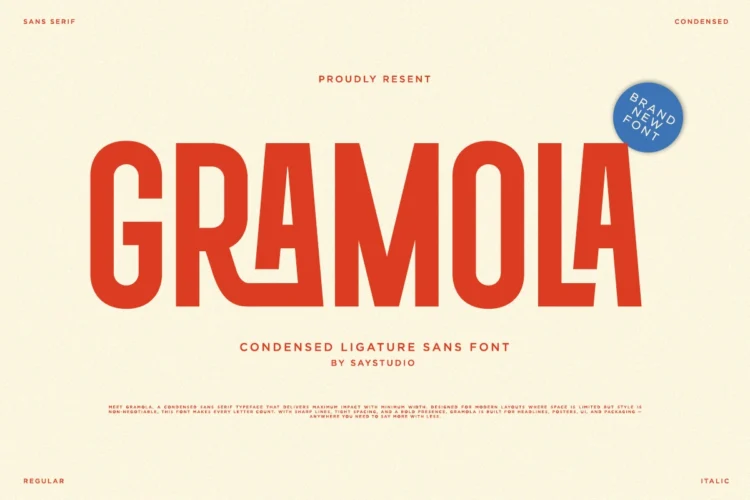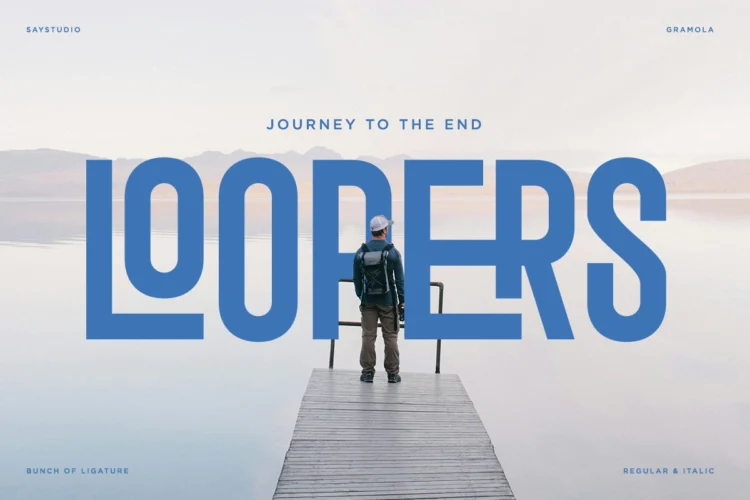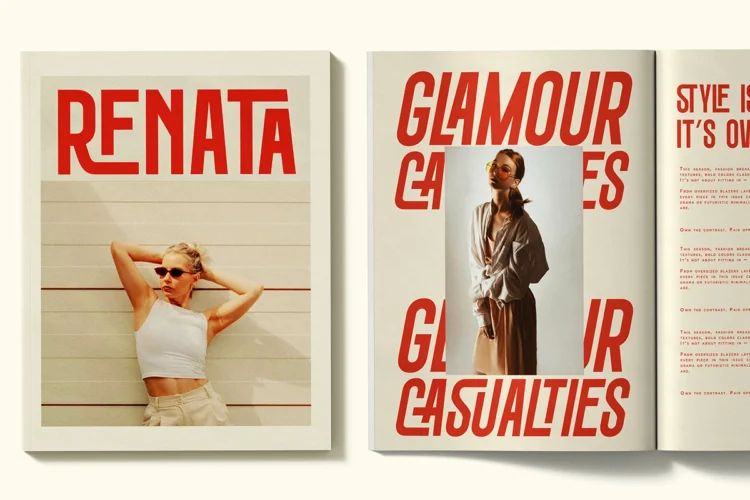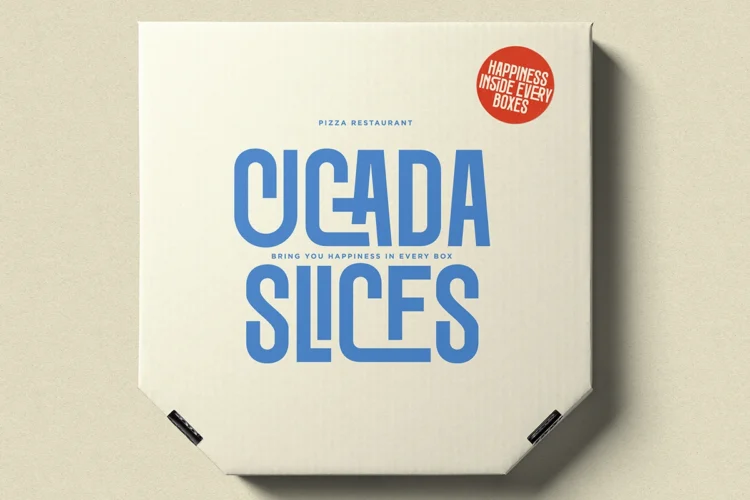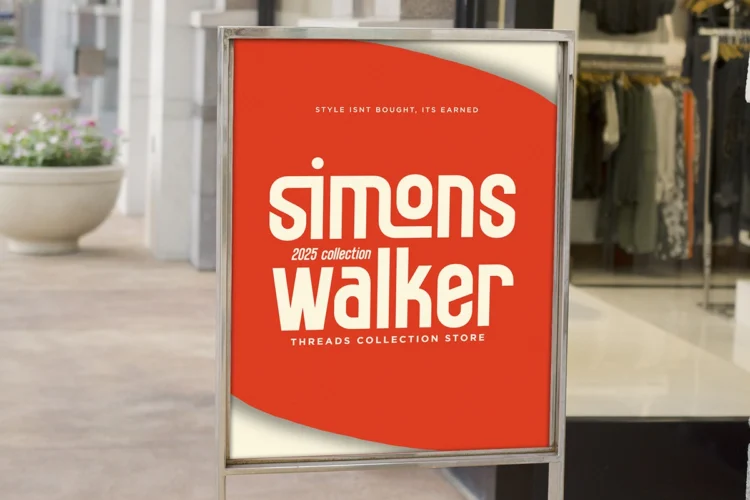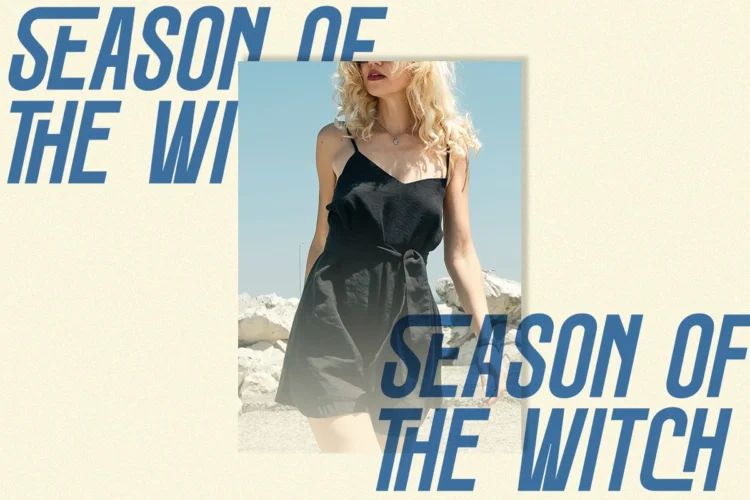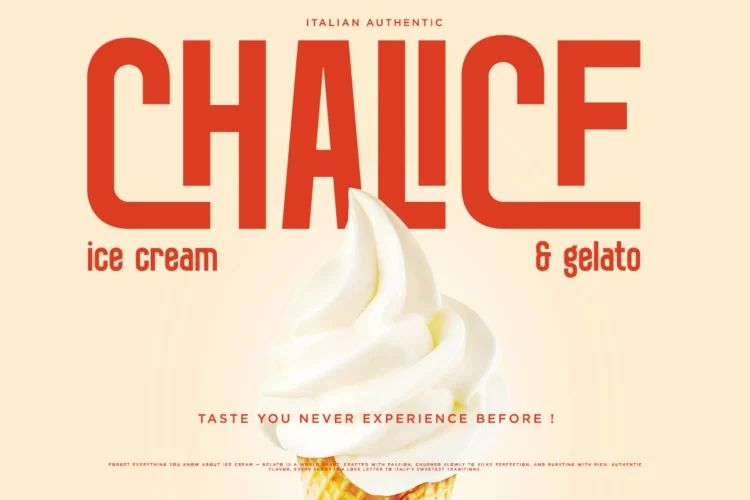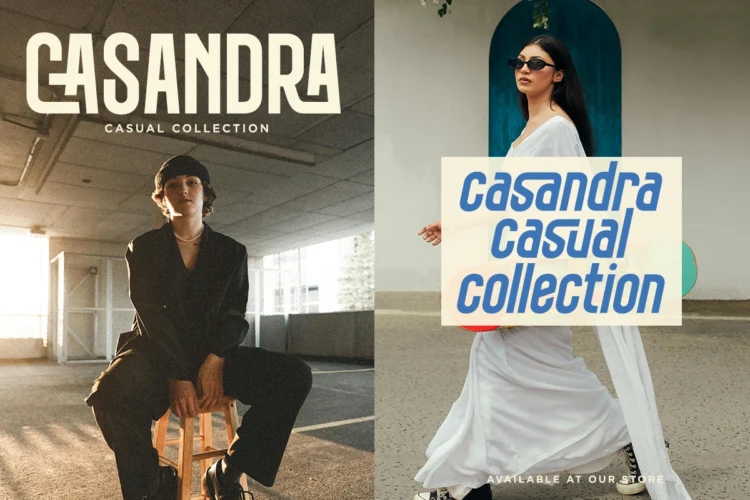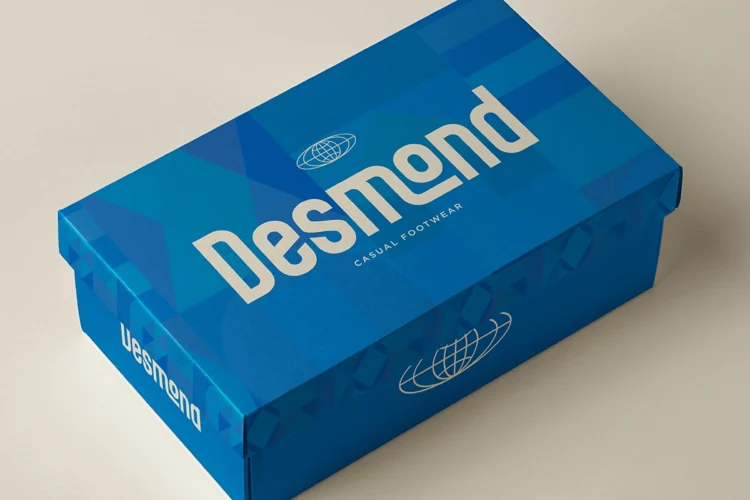
Gramola
Gramola is a modern, condensed sans serif font that combines simplicity with a bold and distinctive character. Designed to make an impact at large sizes, it also maintains its clarity and charm at smaller scales. Ideal for headlines, billboards, magazines, websites, titles, posters, branding, and logos, Gramola comes packed with ligatures, alternates, and versatile features to help your design stand out effortlessly.
Features :
- Ligature Packs ( Up to 15 )
- Number & Symbol.